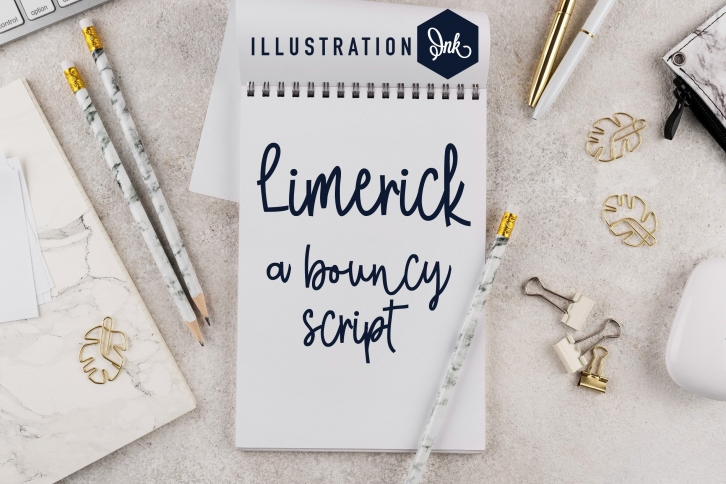
Limerick is a cute and quirky handwritten font with an incredibly friendly feel. Whether you’re looking for fonts for Instagram or handwritten scripts for DIY projects, it will turn any creative idea into a true piece of art! This hand-crafted script is bouncy with elongated descenders and ascenders.